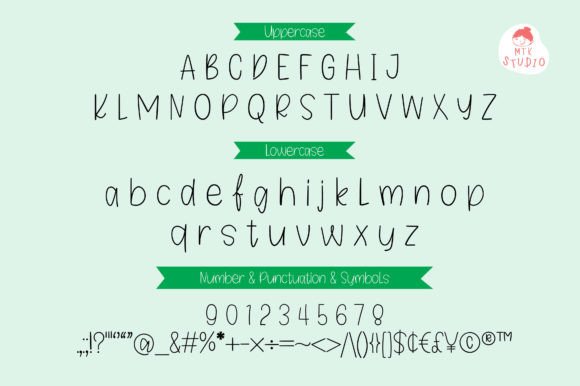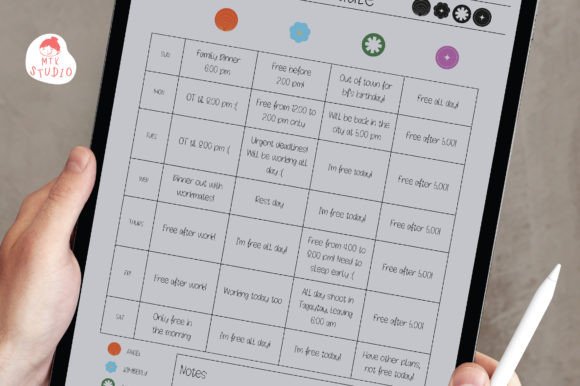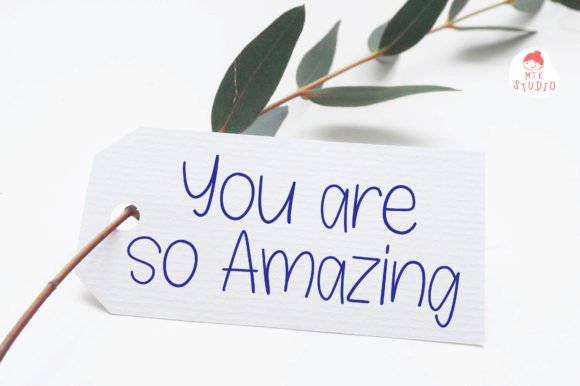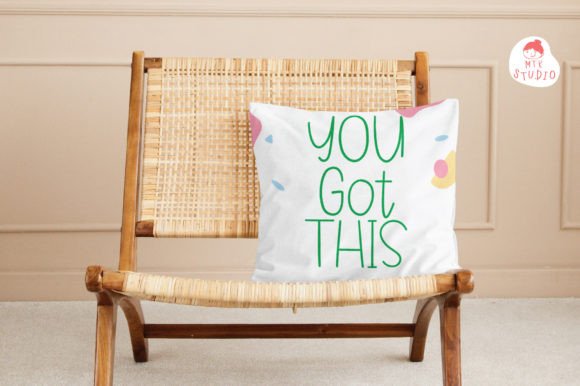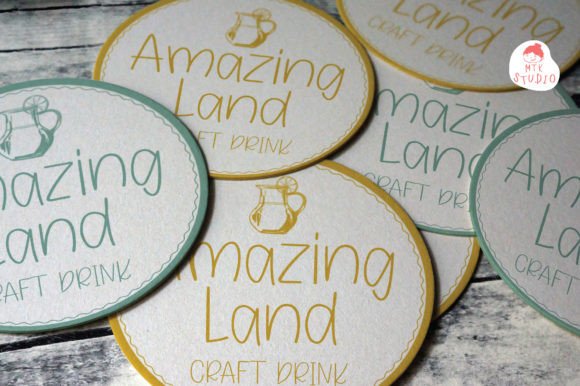
Unlocking Your Creative Potential with Amazingland Font
As you sit with a blank notebook, a pen, and a blank mind, the world of possibilities unfolds. The blank page, a canvas waiting to be filled with your imagination, beckons you to create. It’s in these moments that the right tools can make all the difference. Introducing the Amazingland Font – a delightful, handwritten font designed to elevate your digital planning, note-taking, and creative pursuits.
This versatile font is not just a pretty face; it’s a valuable addition to any designer’s toolkit. Whether you’re a digital artist, a planner enthusiast, or a student seeking to make note-taking a breeze, the Amazingland Font is here to help. Its clean, sans-serif design makes it perfect for digital study notes, collage notes, and more. With the Amazingland Font, you’ll be able to unleash your creativity and bring your ideas to life in a way that’s both beautiful and functional.
Amazingland Font Key Features
- Font Family: Amazingland Font comes in a single font family, with multiple weights and styles to cater to various design needs.
- Character Set: The Amazingland Font includes a comprehensive character set, covering Latin, Cyrillic, and Greek alphabets, as well as a range of punctuation marks and symbols.
- Unique Characteristics: The Amazingland Font features a distinctive, hand-drawn design with subtle imperfections, giving it a unique and personal touch.
Designer Review: Amazingland Font
Overall, I found Amazingland Font to be a visually appealing and playful typeface. ✨ Its unique design elements and creative flourishes make it perfect for projects that require a whimsical touch. I particularly love the way the font’s lines and curves flow together to create a sense of movement and energy.
However, there are some limitations to consider. ⚠️ For one, the font’s irregularities can make it difficult to read at smaller sizes, particularly in body text. Additionally, the font’s bold weight can feel a bit too bold, overpowering the surrounding design elements.
Here are some specific pros and cons:
- ✨ Unique and creative design elements
- ✨ Perfect for projects that require a playful touch
- ✨ High-quality, professional-grade typography
- ⚠️ Difficult to read at smaller sizes
- ⚠️ Bold weight can feel overpowering
- ⚠️ Limited compatibility with certain font formats
Overall, I would recommend Amazingland Font for projects where its playful, whimsical style is a good fit. Just be mindful of the font’s limitations and use it thoughtfully to avoid any potential issues.
Tips: Use the Amazingland font for eye-catching headlines and titles. Experiment with different font sizes and colors to create visual interest.
Tips: Use the Amazingland font for creative typography and design elements. Experiment with layer styles and effects to add depth and interest.
Tips: Use the Amazingland font for presentation titles and headings. Experiment with font sizes and colors to create visual hierarchy and emphasis.
The Amazingland font is perfect for:
- Creating eye-catching headlines and titles
- Designing creative typography and layout
- Adding a touch of whimsy and personality to your designs
Alternatives to Amazingland Font for Designers
Great Vibes Font is a modern script font perfect for creating a fun and energetic atmosphere. It’s ideal for headings, logos, and titles in creative projects. Great Vibes Font is more elegant and refined compared to Amazingland Font, making it suitable for high-end designs.
Comparison: Great Vibes Font has a more polished look, whereas Amazingland Font has a bolder and more playful feel.
Pacifico Font is a beautiful script font that evokes a sense of calmness and sophistication. It’s perfect for creating a relaxing atmosphere in designs related to wellness, travel, or food. Pacifico Font is more refined and elegant compared to Amazingland Font, making it suitable for luxury brands.
What is the recommended font size for using Amazingland Font?
The recommended font size for using Amazingland Font depends on the intended use and the desired visual impact. As a general guideline, we recommend using font sizes between 12pt and 24pt for body text and 36pt to 48pt for headings. However, feel free to experiment with different font sizes to achieve the desired look and feel for your project.